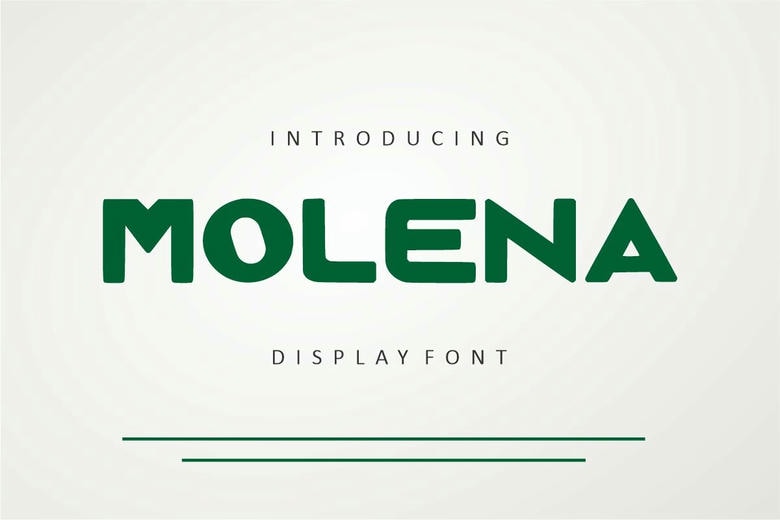
Molena Font
Molena is an Uppercase font, bold, easy-to-read display font that conveys impeccable friendliness. Whether you’re using it for crafts, digital design, presentations, or greeting cards, this font has the potential to become your favorite go-to font, no matter the occasion!
Molena Display Font